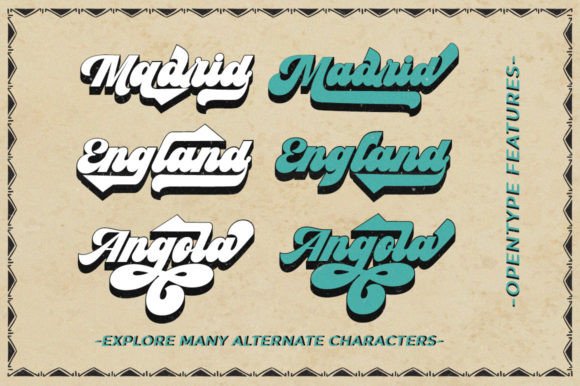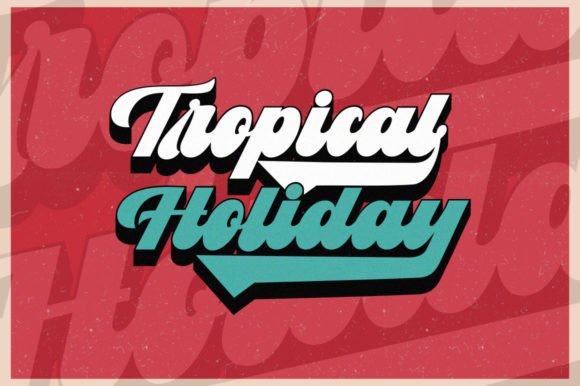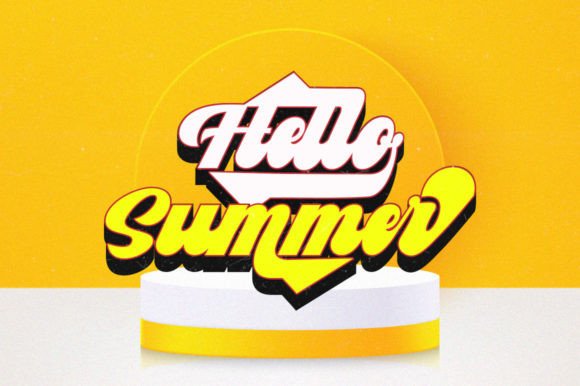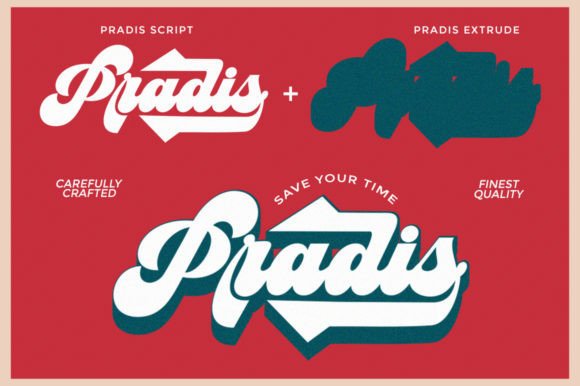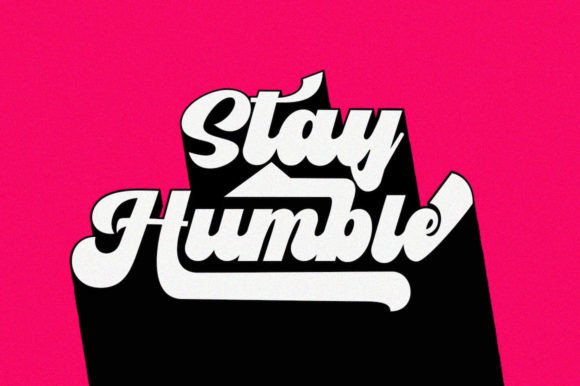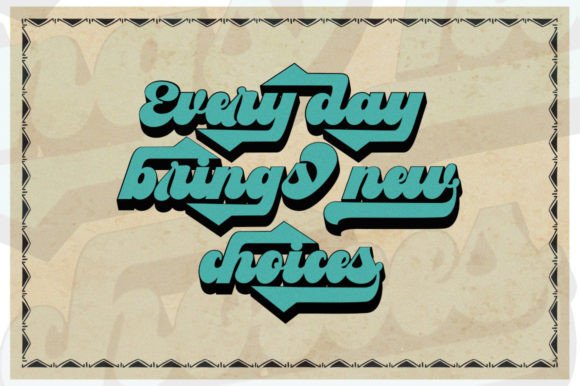
Introduction to Pradis Font
Imagine you’re working on a creative project, and the perfect font is all that’s missing to bring your vision to life. You scroll through countless options, but nothing seems quite right. That’s where the Pradis Font comes in – a vintage retro font that adds a touch of urban charm to your design. This logotype-inspired font is designed to help you create a unique and recognizable brand identity, making it a valuable asset for any designer.
Key Features of Pradis Font
- High-quality font design suitable for creative projects requiring a unique touch.
Honest Review: Pradis Font
I recently came across the Pradis Font while searching for a unique font for a creative project. The fact that it’s a free download made me even more excited to give it a try. After using it in a design, I wanted to share my honest thoughts on this design resource.
- ✨ The Pradis Font has a high quality and modern design that can add a touch of sophistication to any project.
- ✨ It’s perfect for creating a professional-looking design with a transparent background, which is ideal for presentations and websites.
- ✨ The font is easy to read and comes in a range of weights, making it versatile for use in different contexts.
- ⚠️ The font may not be suitable for all types of creative projects, particularly those that require a more playful or whimsical tone.
- ⚠️ Some users may find the font too modern or minimalist for their taste.
Overall, I’m impressed with the Pradis Font and would recommend it to designers looking for a high-quality, free font to use in their projects. While it may have some limitations, it’s a great addition to any design library.
Customizing Pradis Font for Creative Projects
Take advantage of Pradis Font’s high-quality design by experimenting with different font sizes, colors, and styles. You can also combine it with other design elements, such as images or shapes, to create a visually appealing design. To achieve a transparent background, use the font’s transparent background option or layer it over a background image.
Tips for Getting the Most Out of Pradis Font
To maximize the effectiveness of Pradis Font, use it for creative projects that require a modern and elegant look. You can also pair it with other design elements to create a cohesive and visually appealing design.
Common Use Cases for Pradis Font
Pradis Font is ideal for a variety of design projects, including business cards, brochures, and social media graphics. Its high-quality design makes it a popular choice among designers and artists working on creative projects.